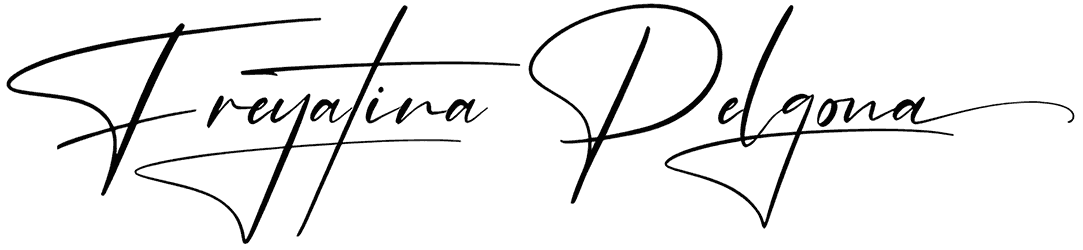
Freyatina Pelgona Font
Freyatina Pelgona, as an unreadable handwritten font, can break the context away from the typical faces with its handmade style and playful design. Signature font can make your project more friendly, especially this one that comes with two different styles. Put Freyatina Pelgona on your coming undertaking, for instance, quotes on mugs, posters, album covers, or similar things, and you will see how fresh it is.